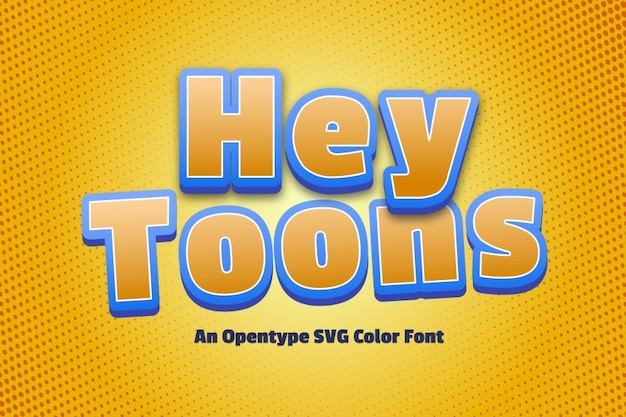
Hey there! Are you also a fan of the cartoon style? If so, you're going to love Hey Toons, a new typeface created to give your projects a cheerful cartoonish style to your projects. Perfect to enrich any type of creation but also to test out your creativity. Download it now!